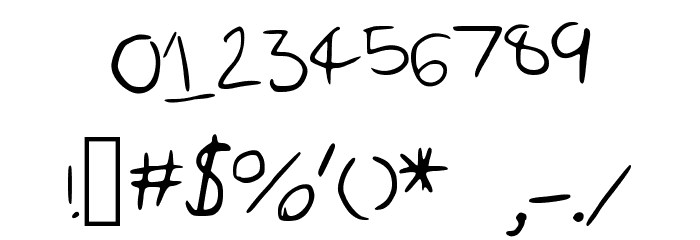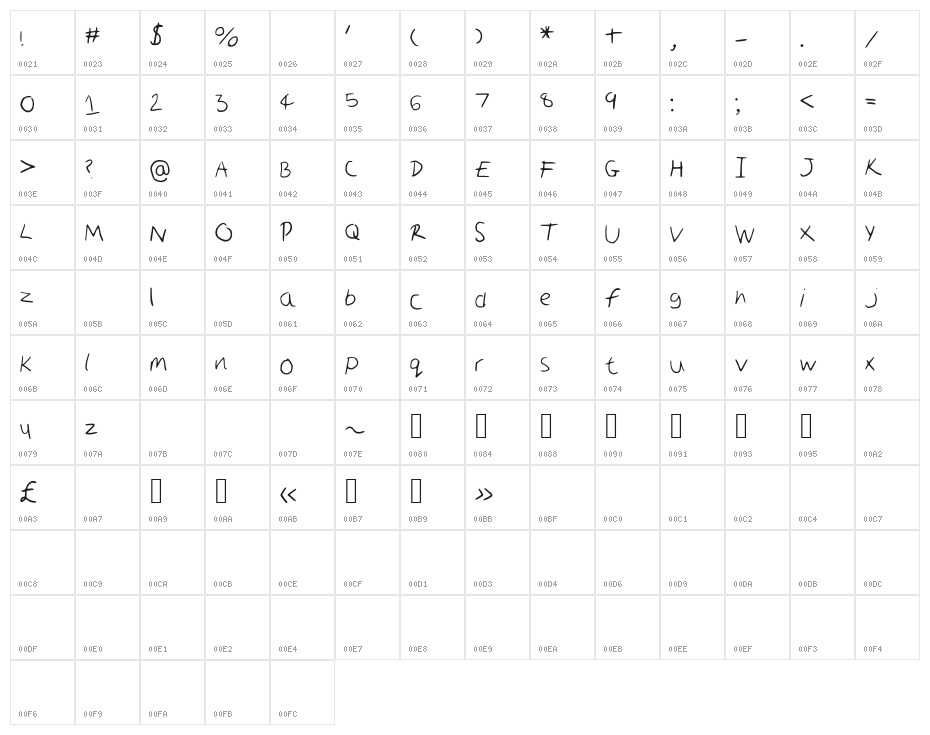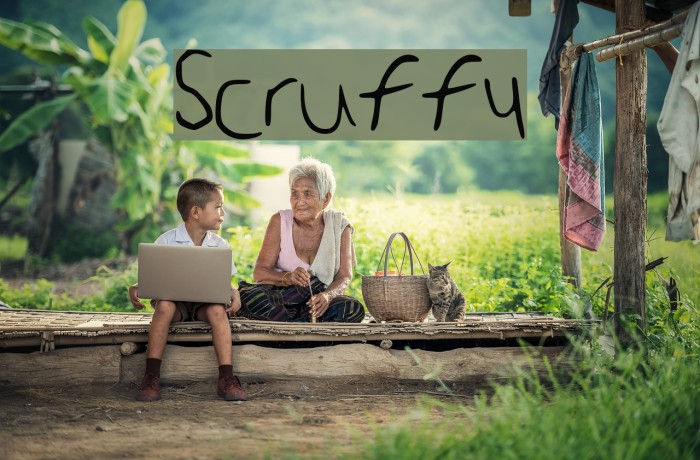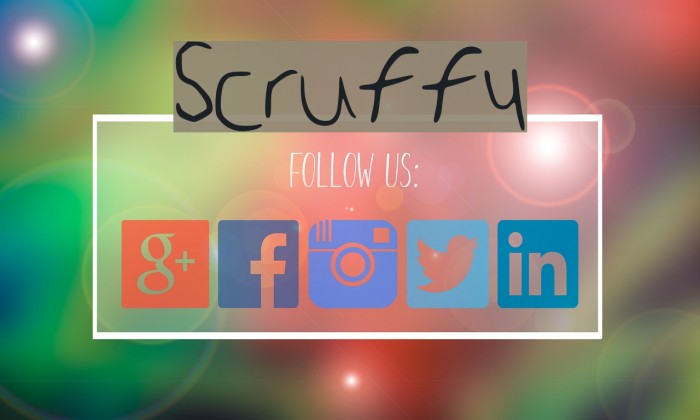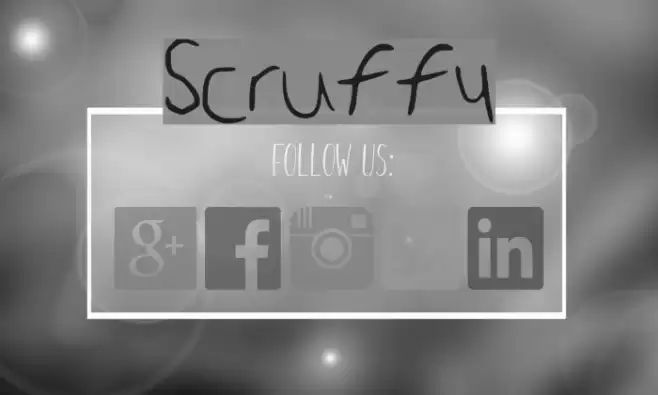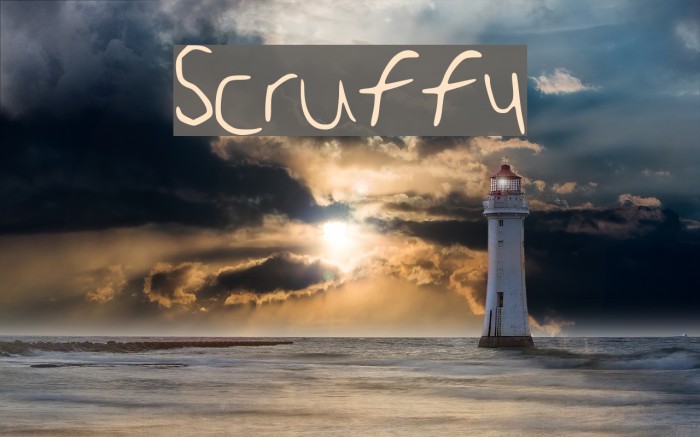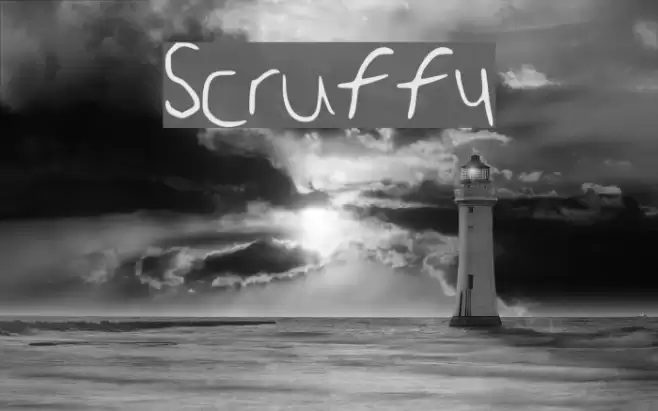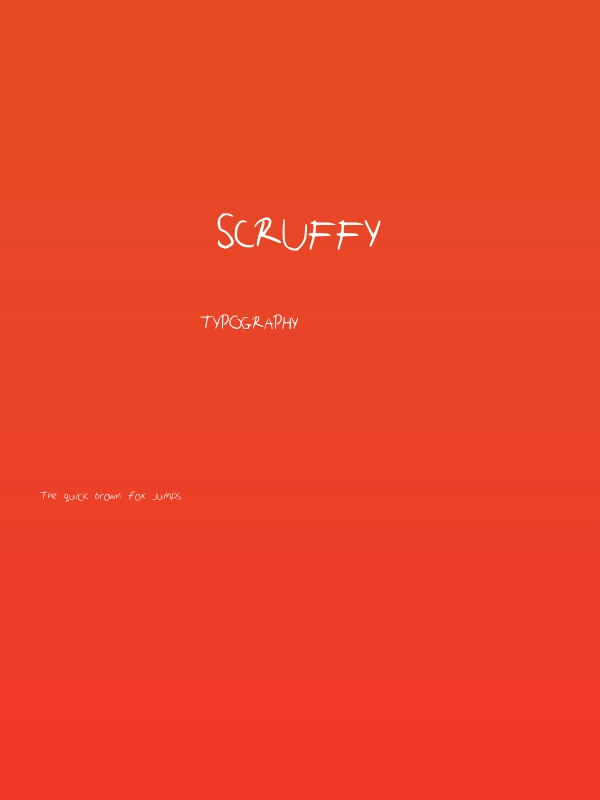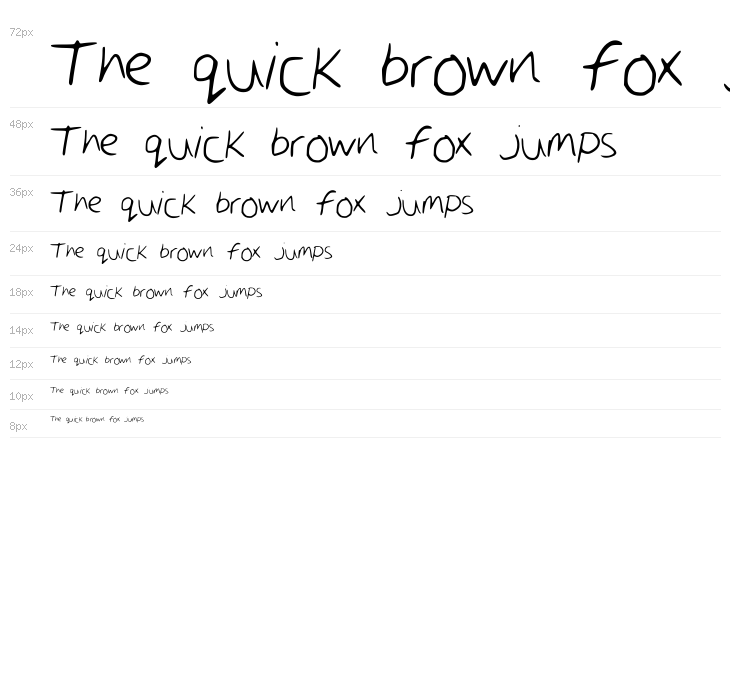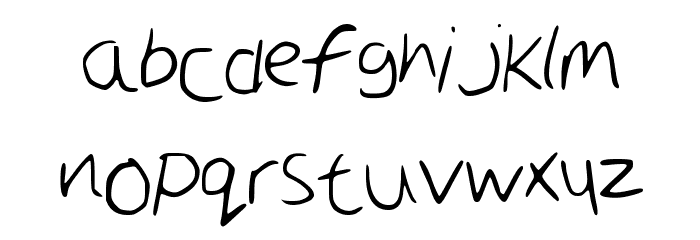
Scruffy Font
Scruffy Description
This font exudes a playful and informal vibe with its hand-drawn, slightly irregular strokes. The characters are crafted with a casual flair, giving off a sense of spontaneity and creativity. Each letter has a unique, quirky appearance, with varying stroke widths that add to its charm. The overall design is reminiscent of handwriting, making it perfect for projects that require a personal touch. Its distinctive style is both approachable and expressive, ideal for conveying a sense of fun and individuality.
Overall StyleCasual, Playful
Use CaseHeadlines, Informal text, Creative projects
Proposed ProjectsIdeal for children's books, greeting cards, casual branding, and creative projects.